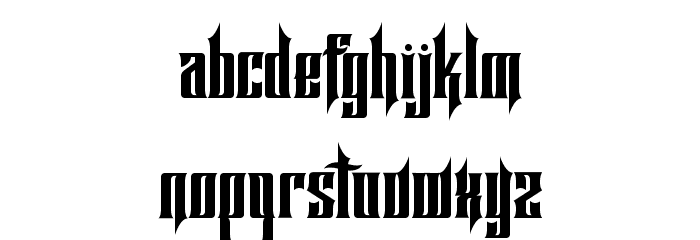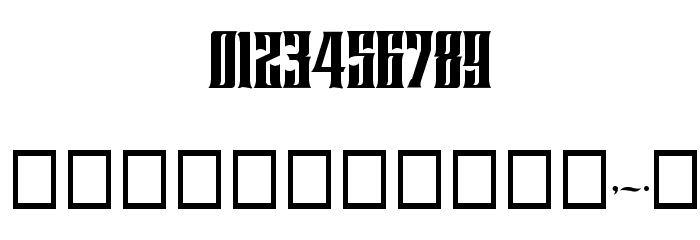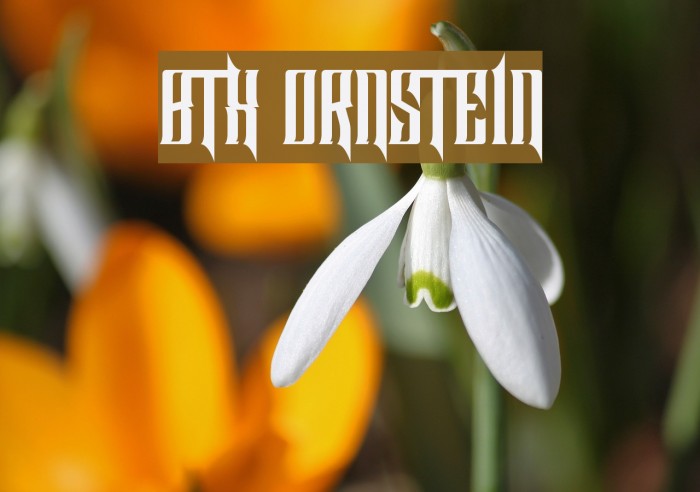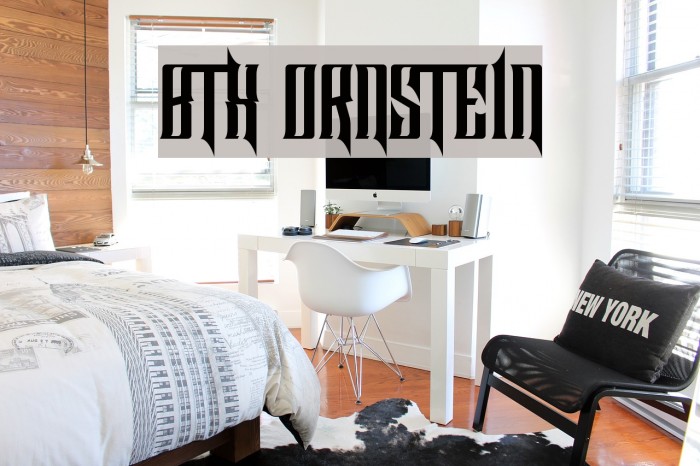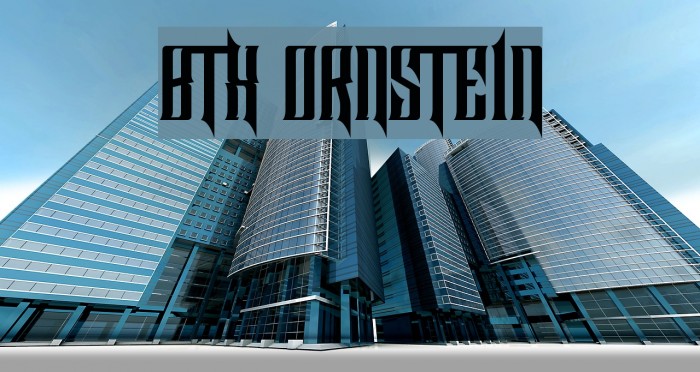
BTX ORNSTEIN Font
This font exhibits a bold and striking blackletter style, characterized by its sharp, angular lines and dramatic serifs. The uppercase letters are tall and imposing, with a gothic flair that is both traditional and eye-catching. The lowercase letters maintain the same angular aesthetic, creating a cohesive look across all characters. Numbers are equally bold, ensuring consistency throughout. The font's unique style makes it ideal for projects that require a historical or medieval touch, while its readability ensures it remains functional.
A bold blackletter font with sharp, angular lines and dramatic serifs.
- Proposed Projects: Ideal for historical documents, medieval-themed designs, posters, and branding that requires a gothic touch.
- Category: Blackletter
- Overall Style: Vintage